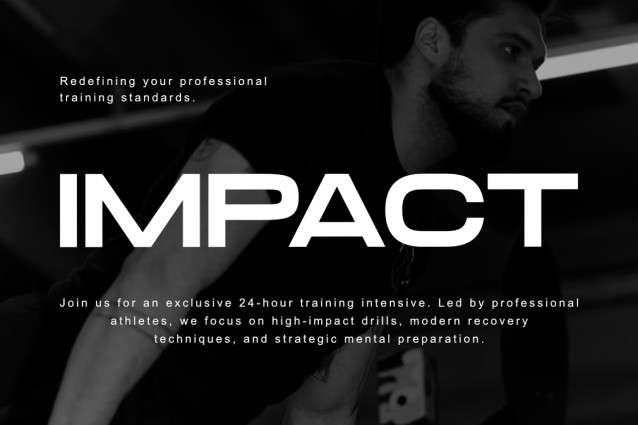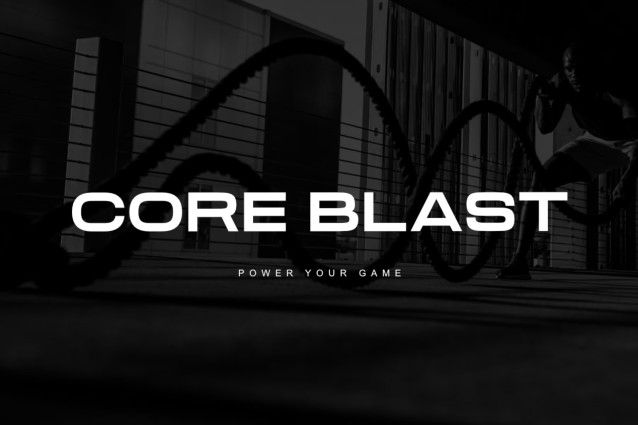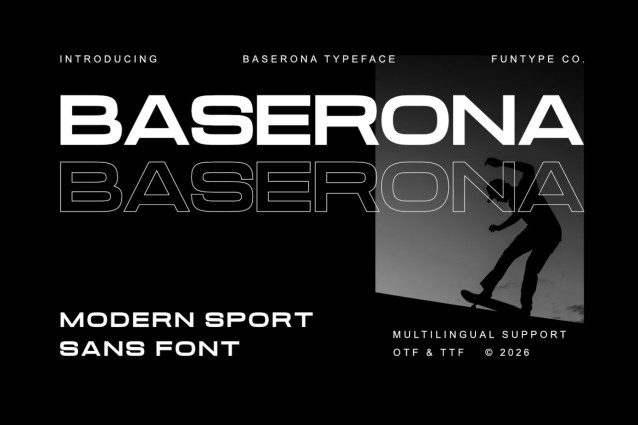
Baserona Font
Baserona is a massive and powerful modern sport sans font designed for high-impact and precise athletic typography. Featuring a bold, wide geometric structure alongside a dynamic outline variant, this font is perfect for strong headlines, professional sports logos, automotive branding, and high-impact digital posters.
Its confident, blocky, and balanced design gives your visuals a striking, professional, and advanced look. Provided in OTF and TTF formats with full multilingual support for maximum compatibility across all creative design and merchandise platforms.